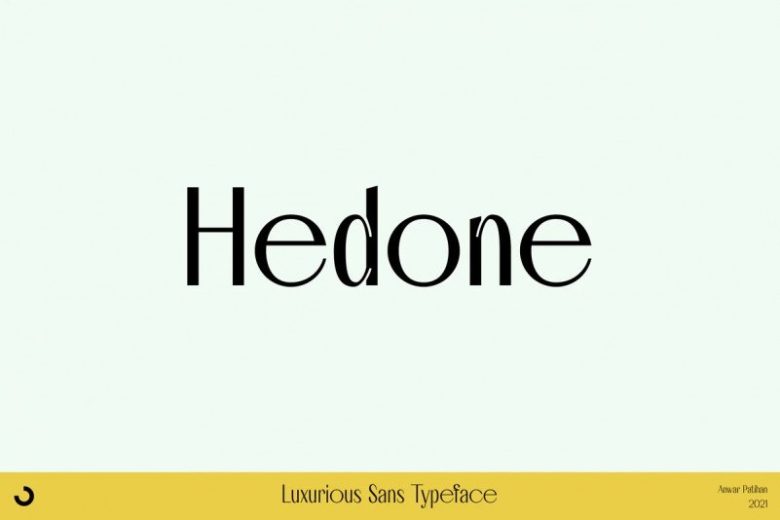
Hedone Font
Hedone Sans Serif Font is a strong, delicately refined sans serif typeface but in some glyphs it has a complete circle shape, and the ink trap on each glyph makes a strong elegant impression on Hedone typeface.
it’s perfect for a striking vintage and elegant minimalist theme design. Stunning details and versatile possibilities for this font make it an essential addition to any type magazines, posters, album covers, brochures, social media posts, web UI and so on.
4 weights with more than 475 glyphs each, have the Opentype Alternate feature, ligature, and discretionary ligature. Support Western Europe, Central / Eastern Europe, Baltic, Turkish, Romanian, Cyrillic making it very flexible when combined with other typefaces.